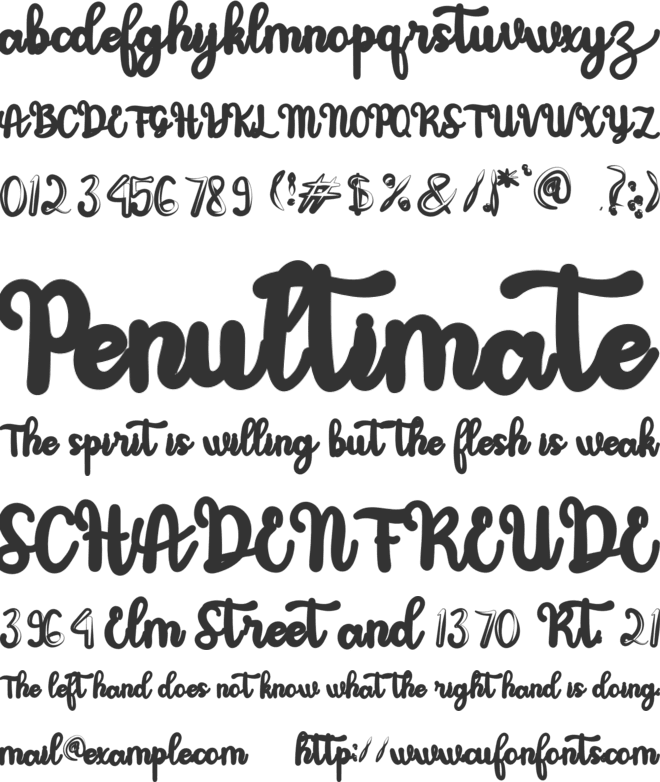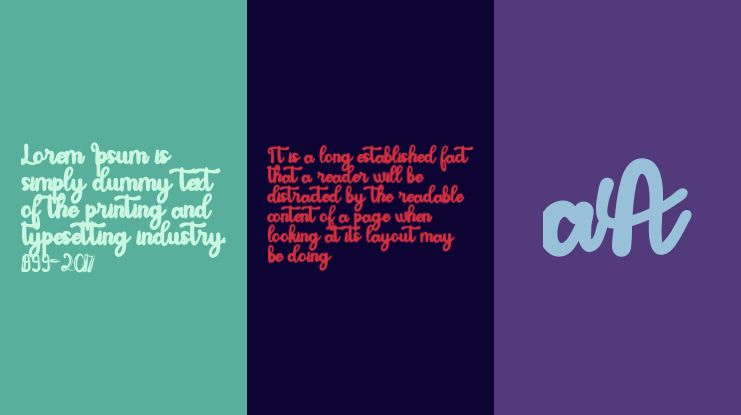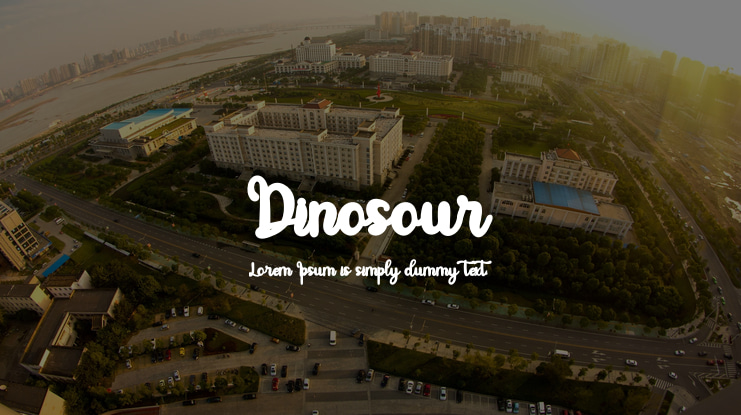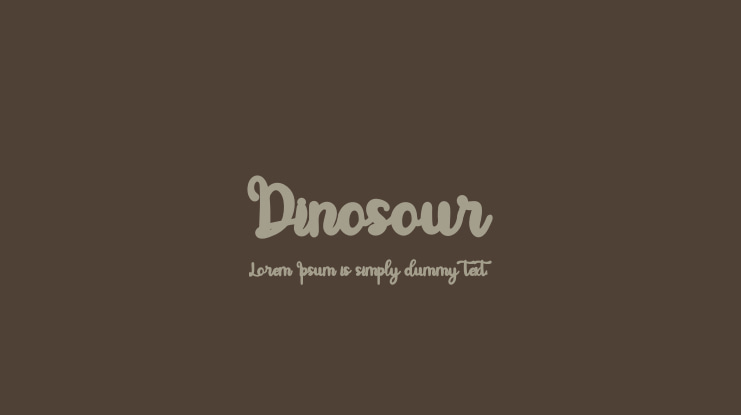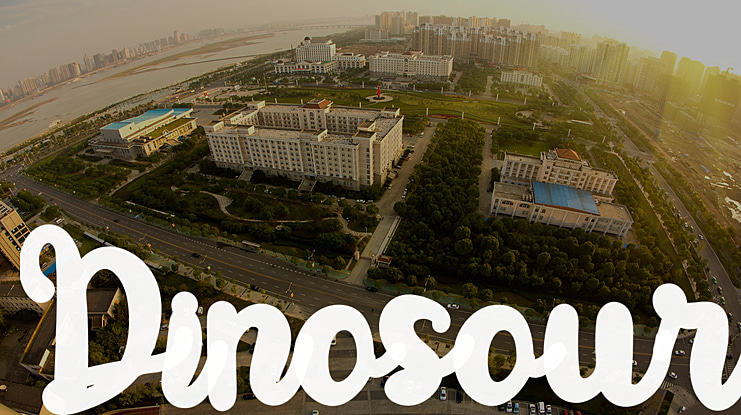
Dinosour Font
Dinosaur is a cute and cursive script font. It is defined by smooth curves and is perfect for branding or editorial designs. Add it confidently to your projects, and you will love the results.https://www.creativefabrica.com/product/dinosaur-134/ref/245145/